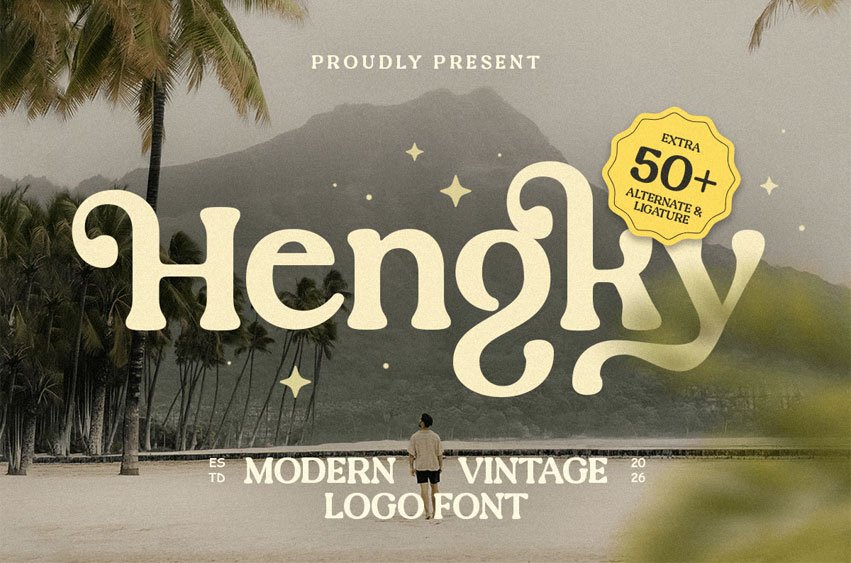
Hengky Font Modern Vintage Logo Font Hengky is a modern vintage logo font designed to combine classic retro charm with a fresh contemporary style. Featuring bold letterforms, smooth curves, and nostalgic character, Hengky is perfect for logos, branding, packaging, posters, merchandise, and vintage-inspired creative projects.
Blending timeless vintage aesthetics with modern clarity, Hengky delivers strong visual impact while remaining highly readable. Its distinctive personality makes it ideal for cafés, barbershops, merchandise brands, restaurants, retro branding, and designers looking for a logo font that feels both classic and modern.
Hengky – Modern Vintage Logo Font Features:
- Modern vintage style with retro character
- Ideal for logos, branding, posters, and packaging
- Uppercase, lowercase, numerals, and punctuation included
- Bold shapes with nostalgic design influence
- Perfect for retro, classic, and vintage-themed projects
Create memorable branding with Hengky – the modern vintage logo font designed for bold and timeless designs.